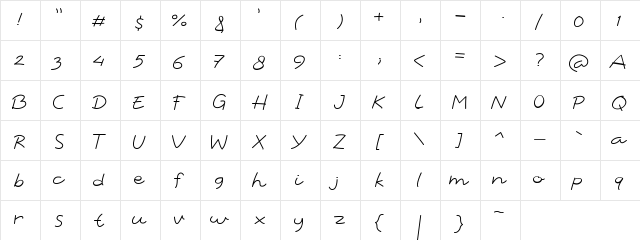
Soulitude Regular
Design Context for Soulitude Typeface
Soulitude is a composed and adaptable typeface that performs quietly and consistently across a wide range of design contexts.